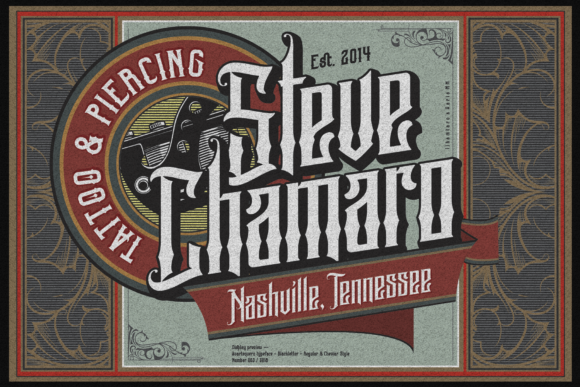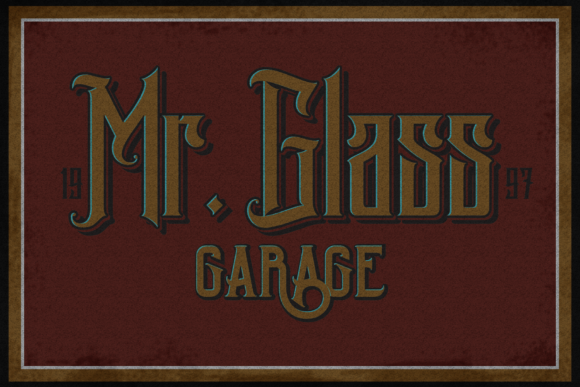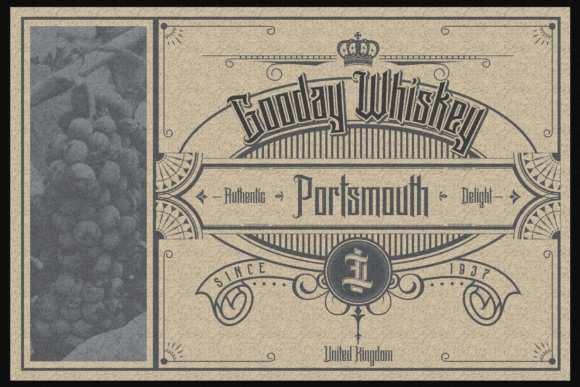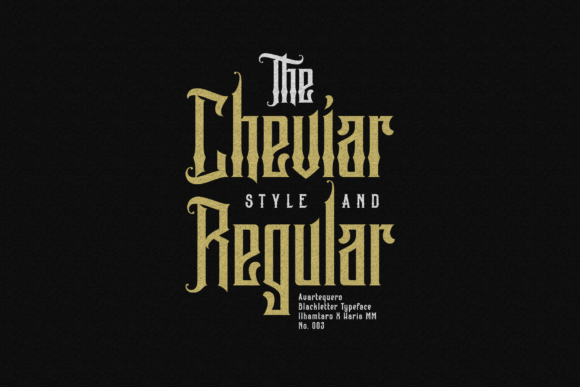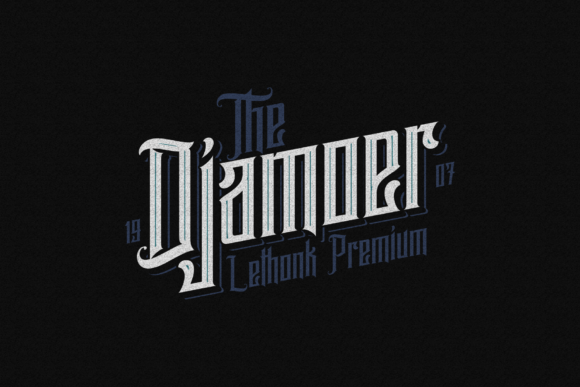
Avartequero Font: Unleash the Power of Authentic Blackletter Typography
In the realm of typography, few fonts evoke the same level of drama and sophistication as Avartequero. This daring, thick-lettered, and authentic blackletter font is a game-changer for designers and crafters seeking to add a touch of elegance and mystery to their projects. In this article, we’ll delve into the world of Avartequero, exploring its unique features, endless possibilities, and the ways you can harness its power to elevate your designs.
The Essence of Avartequero
Avartequero is a bold, blackletter font that exudes confidence and authenticity. Its thick, dramatic letters are reminiscent of traditional Gothic typography, yet with a modern twist that sets it apart from more traditional blackletter fonts. This font is perfect for designers who want to make a statement, create a sense of luxury, or simply add a touch of sophistication to their work.
Key Features of Avartequero
• Authentic Blackletter Style: Avartequero’s design is rooted in traditional blackletter typography, ensuring an authentic look and feel that’s perfect for a range of applications.
• Thick, Dramatic Letters: The font’s bold, thick letters are designed to make a statement, adding a level of drama and sophistication to any design.
• Modern Twist: Avartequero’s unique blend of traditional and modern elements sets it apart from more traditional blackletter fonts, making it perfect for designers seeking a fresh take on classic typography.
• Endless Possibilities: From branding and advertising to packaging and crafting, Avartequero’s versatility ensures it can be used in a wide range of applications.
Exploring the Endless Possibilities of Avartequero
So, what can you do with Avartequero? The possibilities are truly endless! Here are a few ideas to get you started:
• Branding and Identity: Use Avartequero to create a bold, memorable brand identity that sets your business apart from the competition.
• Advertising and Marketing: Add a touch of sophistication and elegance to your advertising and marketing materials with Avartequero’s dramatic, attention-grabbing letters.
• Packaging and Labeling: Use Avartequero to create eye-catching packaging and labels that showcase your product in a unique and compelling way.
• Crafting and Scrapbooking: Add a touch of handmade charm to your crafting and scrapbooking projects with Avartequero’s authentic, blackletter style.
Tips for Working with Avartequero
To get the most out of Avartequero, here are a few tips to keep in mind:
• Experiment with Color: Avartequero’s bold, dramatic letters are perfect for experimenting with color. Try pairing the font with a range of colors to create a unique, eye-catching effect.
• Play with Texture: Add depth and interest to your designs by pairing Avartequero with a range of textures and patterns.
• Mix and Match: Don’t be afraid to mix and match Avartequero with other fonts and typography styles to create a unique, visually appealing effect.